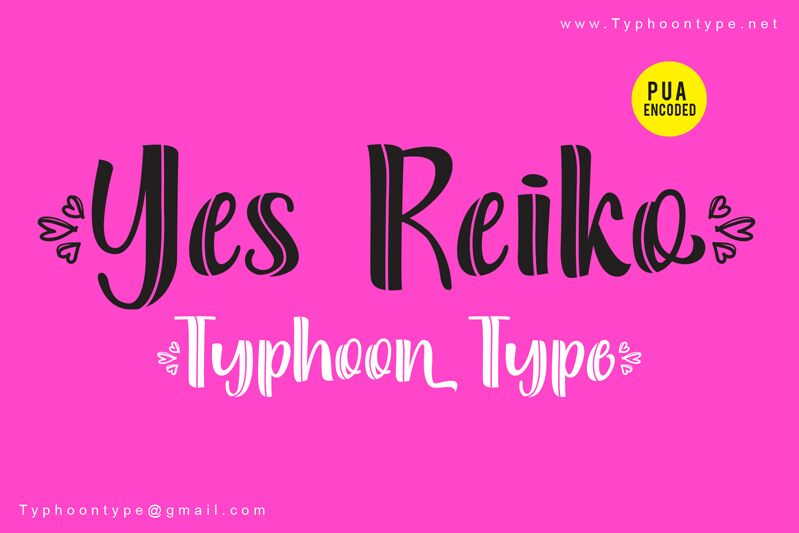
Yes Reiko font is an awesome script typeface designed by Typhoon Type - Suthi Srisopha.
Type ( before word to get beginning Mini Hearts and Type ) after word to get the ending Mini Hearts.
Example : (Yes Reiko)